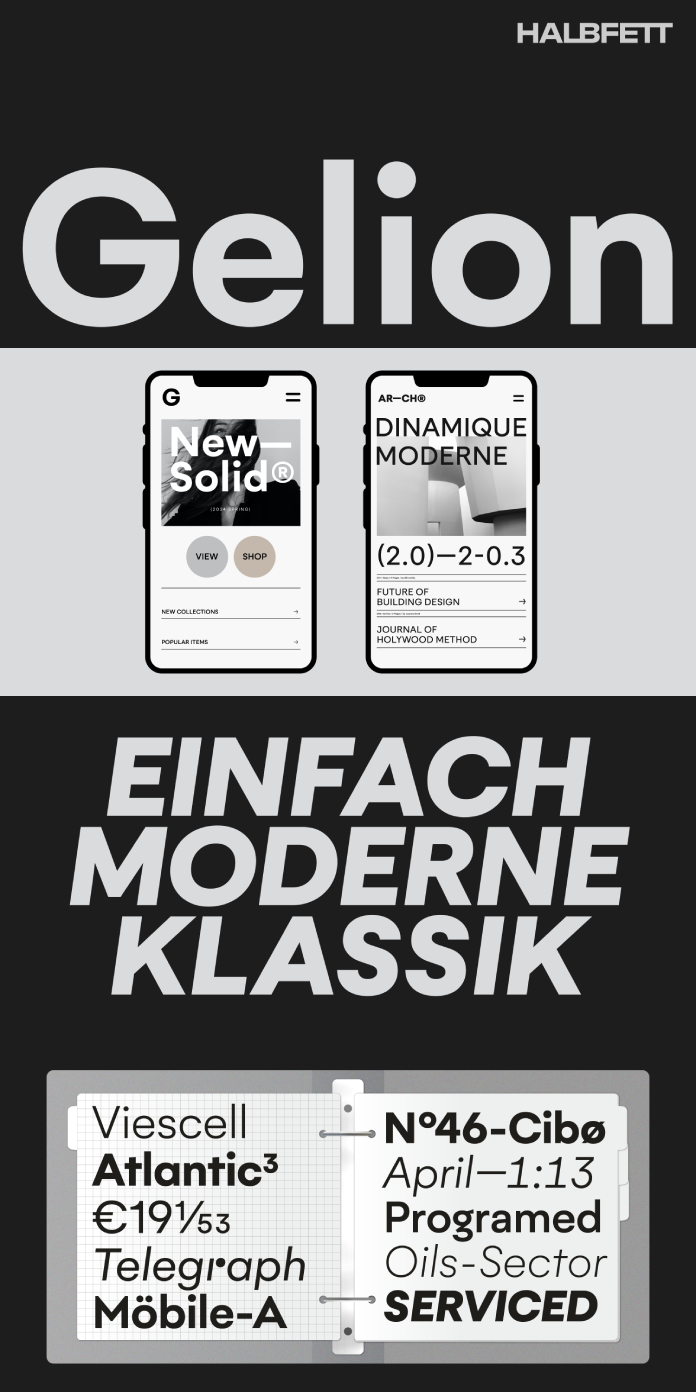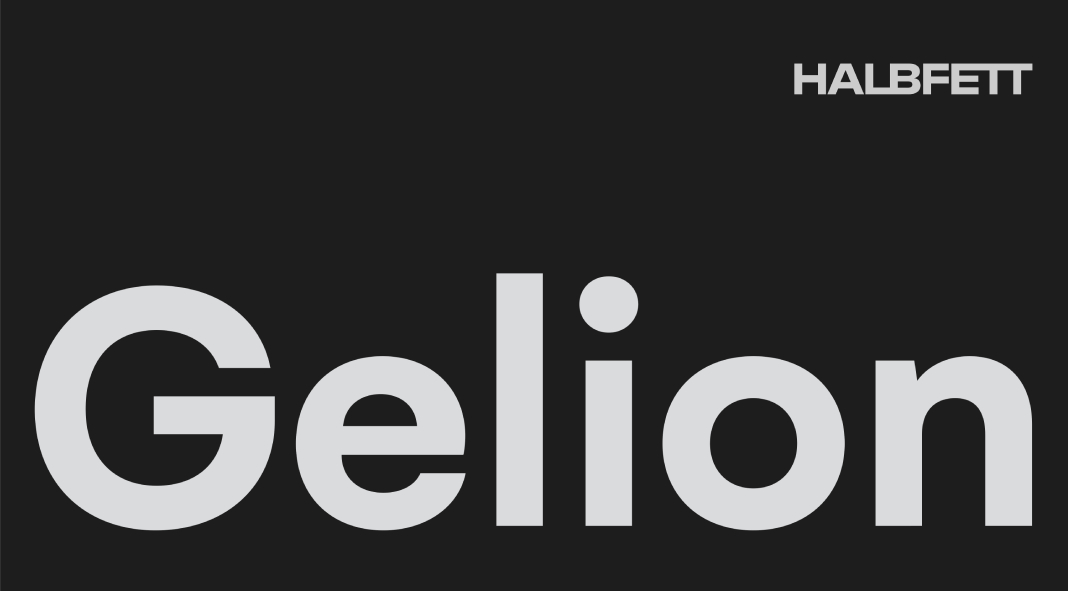
Gelion Font Family: A Geometric Masterpiece from Foundry Halbfett
Designed by Deni Anggara of foundry Halbfett, the Gelion font family stands as a remarkable tribute to the timeless elegance of 20th-century geometric sans serifs, seamlessly merging with the neo-grotesque aesthetics of a bygone era. This expansive typeface collection emerges as a versatile choice, tailored to meet the multifaceted demands of contemporary design projects, be it corporate branding or editorial layouts. The meticulous attention to detail, extensive range of styles, and thoughtful features all contribute to Gelion’s rightful place as a distinguished addition to the world of typography.
The first thing that strikes the eye is Gelion’s seamless blend of classic inspiration with modern sensibilities. Drawing from the geometric sans serifs of the past and neo-grotesque designs of the 20th century, Gelion effortlessly captures the essence of these influences while adding its own contemporary flair. The result is a family of fonts that pay homage to tradition while standing out as relevant and adaptable in today’s design landscape.
One of the standout features of Gelion is its comprehensive range of weights and styles. With eight distinct weights, from the delicate Extralight to the commanding Black, designers have the full spectrum of visual emphasis at their disposal. The inclusion of both upright and italic variations for each weight further expands the creative potential, allowing for a diverse interplay of styles within a single typeface. The italics, thoughtfully crafted with an 8° slope, add a touch of dynamism without sacrificing readability.
Gelion’s monolinear strokes across all weights provide a consistent and clean appearance. The tall x-height of the lowercase letters enhances legibility, even in smaller sizes, while maintaining enough space for diacritical marks. The single-storey forms of the default “a” and “g” contribute to the typeface’s geometric elegance, while the rounded dots on “i,” “j,” and diacritics, as well as punctuation marks, add a touch of warmth.
Beyond its core attributes, Gelion surprises with its attention to detail and thoughtful extras. The inclusion of numerous ligatures, monochromatic emoji, arrows, Roman numerals, and more demonstrates a commitment to versatile functionality. The stylistic alternates provide a unique twist, allowing designers to instantly transform the geometric vibe into a more humanistic one, all with a simple click. This adaptability ensures that Gelion remains a valuable tool in the designer’s arsenal, capable of catering to diverse project requirements.
The italic variation’s descending “f” stands as a testament to Gelion’s typographic refinement. This subtle yet distinctive trait adds a touch of sophistication, reminding us of the intricate nuances that can elevate a font from good to exceptional.
In conclusion, the Gelion font family by Foundry Halbfett offers an inspiring blend of history and innovation. Its meticulously crafted letterforms, extensive range of weights, and thoughtful features make it an excellent choice for a wide array of design projects. Whether you’re seeking a geometric edge or a more humanistic touch, Gelion’s versatility ensures it can effortlessly adapt to your creative vision. With Gelion, foundry Halbfett has not only created a font family but a design tool that bridges the past and present, enriching design endeavors with its timeless charm.